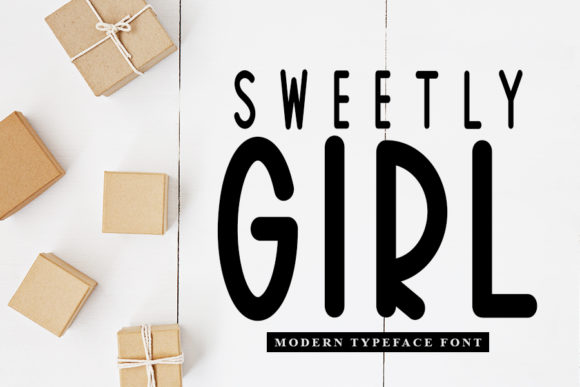
Introducing Sweetly Girl Font, the enchanting sans serif font that captures the essence of femininity and grace. Its delicate curves and flowing lines add a touch of elegance and charm to any design, making it the perfect choice for crafting projects that demand a personalized touch.
With Sweetly Girl Font, your words will dance off the page, captivating your audience with its timeless beauty. Its versatile nature makes it suitable for various projects, from medical brochures to wedding invitations. Let Sweetly Girl Font elevate your designs to new heights, leaving a lasting impression that resonates with your audience.
Transport yourself to a world of refined elegance, where your words take center stage, adorned with the charm of Sweetly Girl Font. Its whimsical style adds a touch of playfulness to any project, while its timeless appeal ensures that your designs remain relevant and captivating for years to come.
Immerse yourself in the world of Sweetly Girl Font, where creativity knows no bounds. Whether you're designing a medical brochure, a wedding invitation, or a heartwarming letter, Sweetly Girl Font will infuse your words with a touch of magic, leaving your audience captivated by its allure.
So, embrace the beauty of Sweetly Girl Font and embark on a journey of creative expression. Let your words flow effortlessly, guided by the enchanting curves and delicate lines of this exquisite font. Experience the joy of crafting designs that resonate with your audience, leaving them mesmerized by the timeless elegance of Sweetly Girl Font.